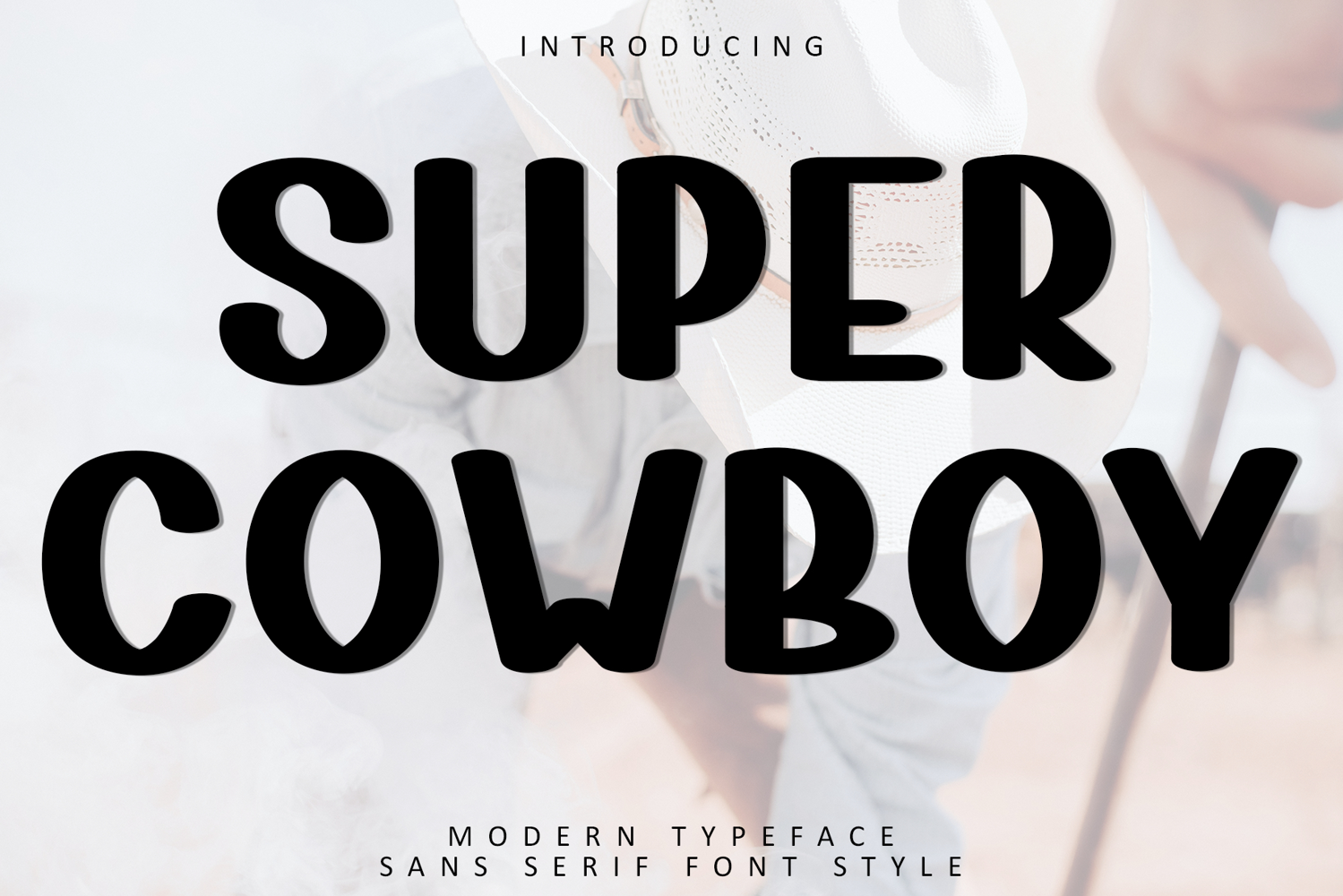
Super Cowboy
Super Cowboy is a beautiful and eye-catching font designed with a soft, unique touch. Its distinctive strokes give it a special character, making it meaningful and versatile for future use. With various characters, it’s perfect for design projects, crafts, and other creative works.